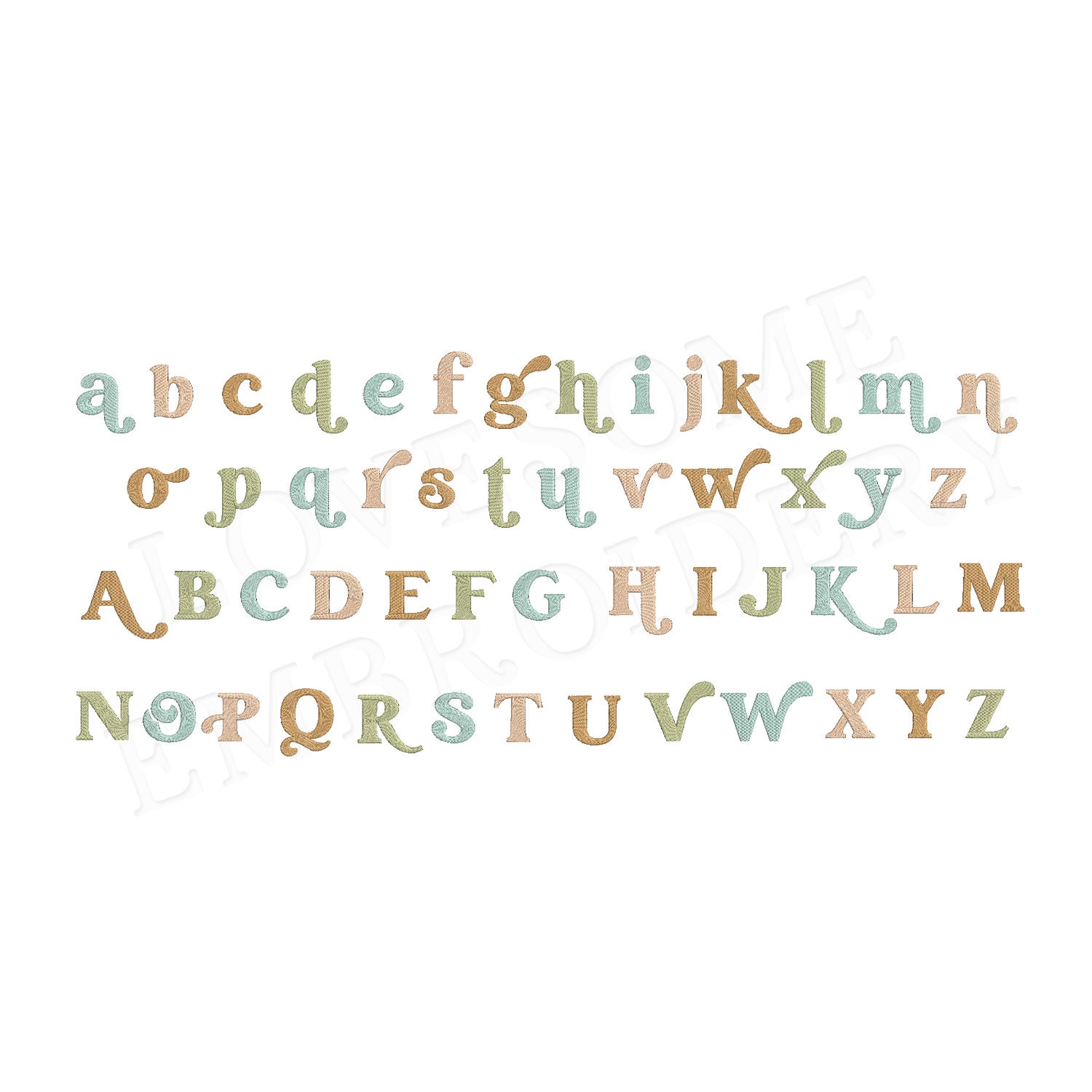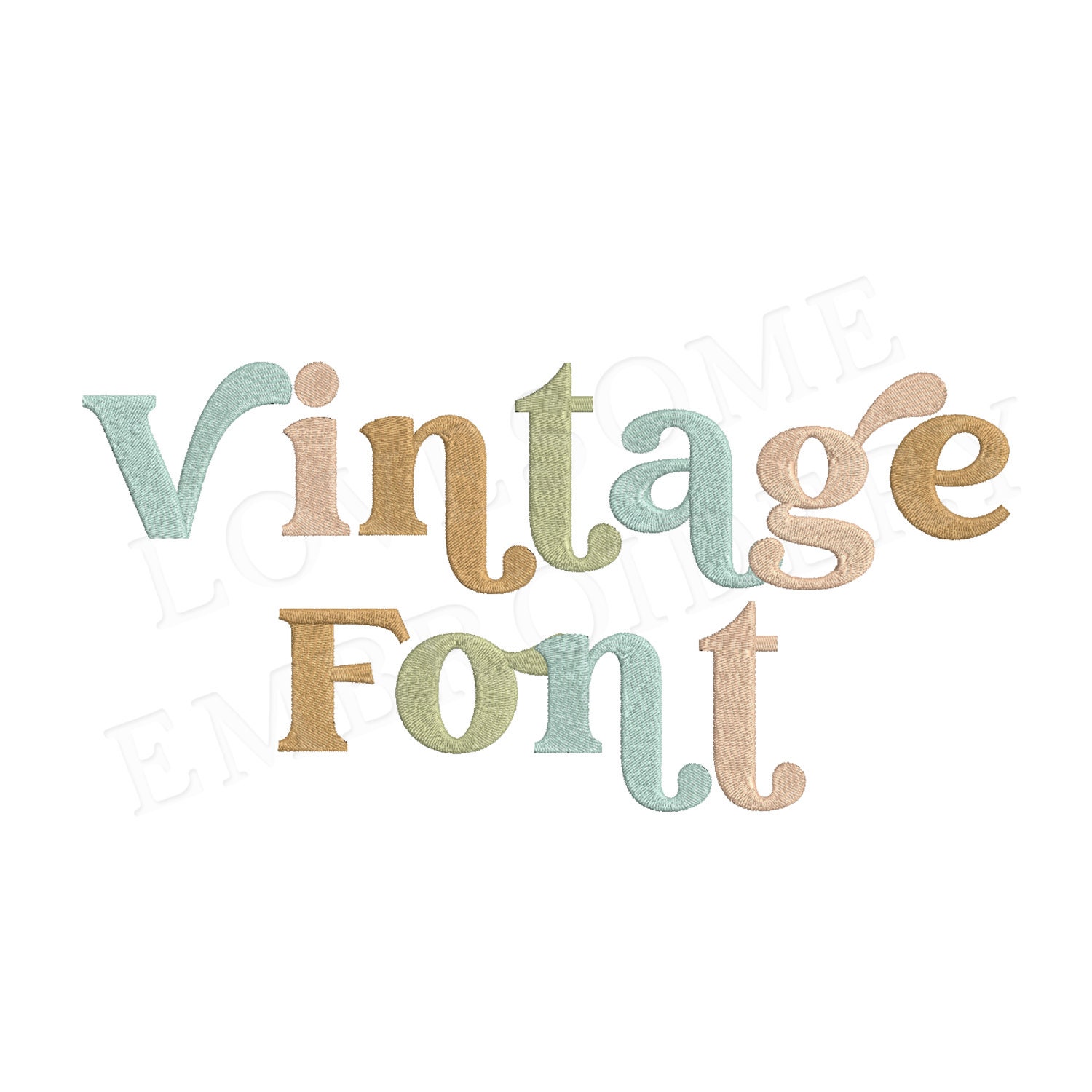
Vintage Glyphs Font 3.5inch Retro Font A-Z Machine Embroidery Font Digital Download | Lovesome Design
This listing features a machine embroidery retro font set which includes groovy embroidery files of 26 uppercase and 26 lowercase letters in 3.5inch size. (For the whole set, pls see the listing images.)